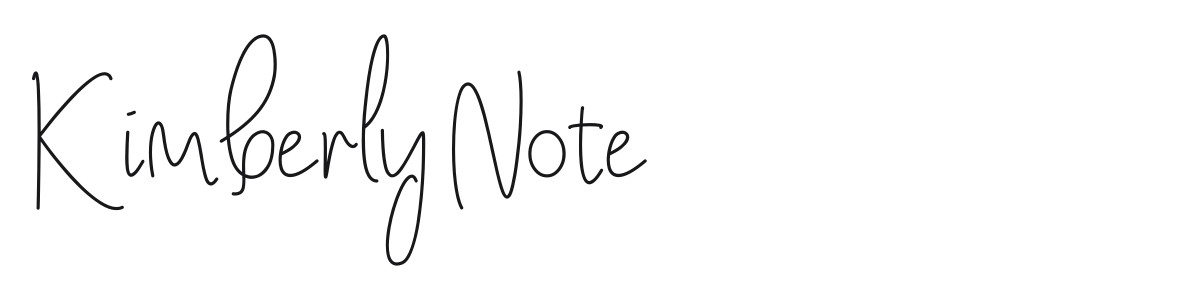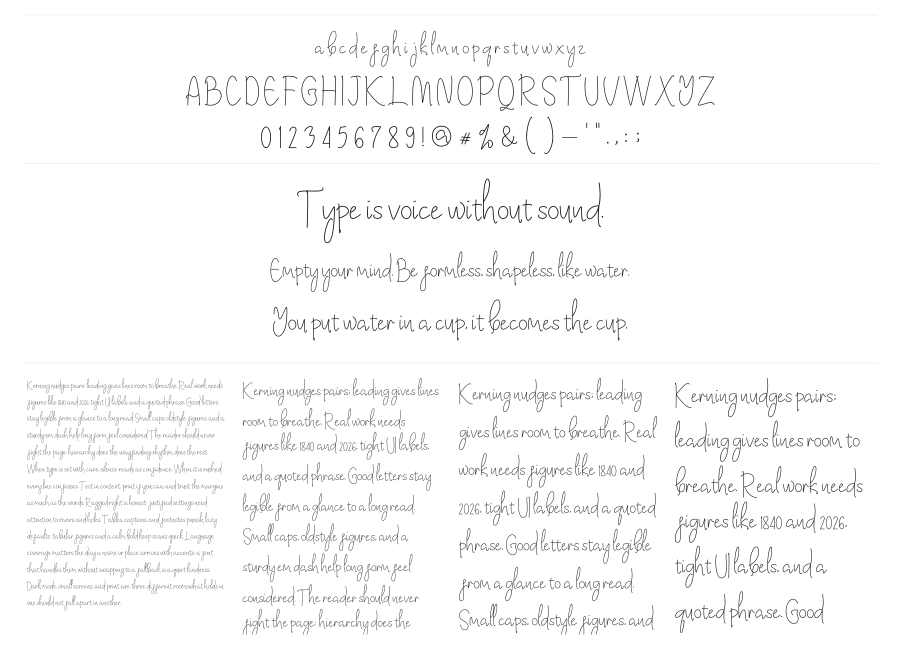
Kimberly Note
Kimberly Note is a thin, single-weight connected script that mimics relaxed, natural handwriting. Its long looping ascenders and open letter forms give it a breezy, effortless feel. Best used at larger sizes where the flowing rhythm reads clearly.